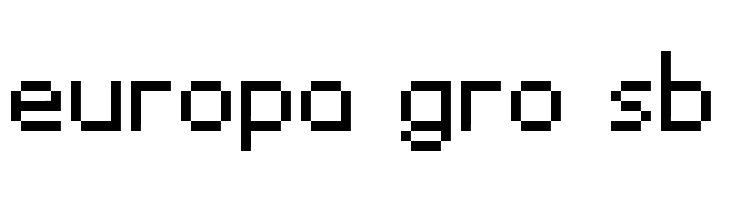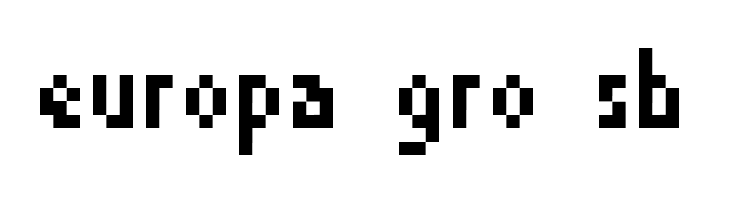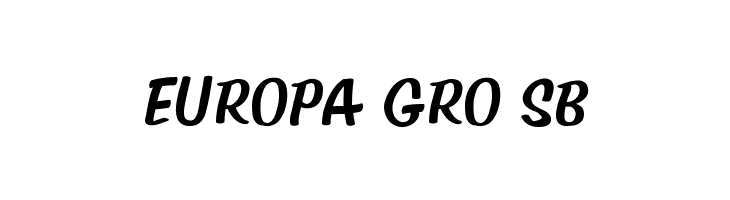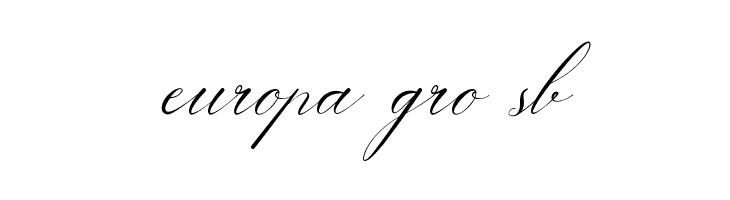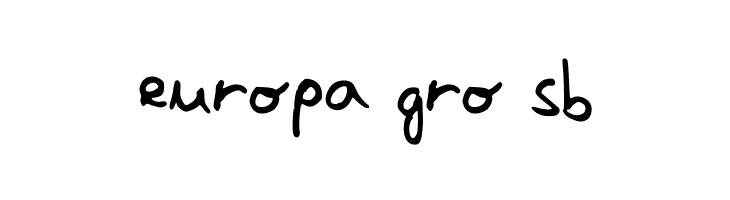
A playful, bold font with a bubbly, cartoonish style.
An elegant script font with intricate swashes and flowing letterforms.
A bold, dynamic font with a slight slant and smooth curves, ideal for impactful headlines.
A bold, dynamic font with a modern and energetic style.
A bold, dynamic brush script font with expressive strokes.
A bold, brush-style font with dynamic and expressive strokes.
A playful, handwritten font with a casual and dynamic style.